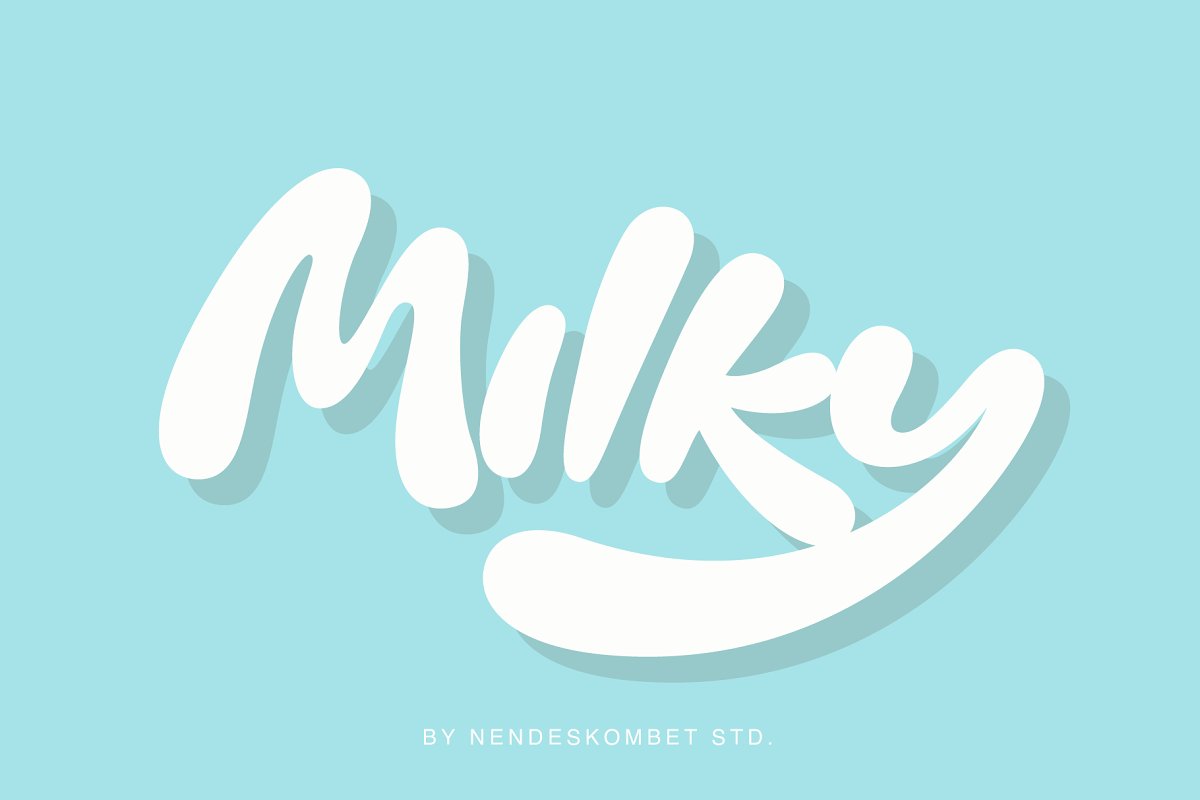
About the Milky a Bright and Bubbly Font
Milky – a Bright and Bubbly Font by NendesKombet Std, Milky, a bright and bubbly set of font that will enlighten your day! With its round and curvy shape, Milky is perfect to represent your brands or any of your work with a touch of fun, Equipped with alternates, Milky is ready to the fullest to be your cuteness army, Buy now or regret later!To access alternates characters please visit the glyphs panel in the design program you’re using